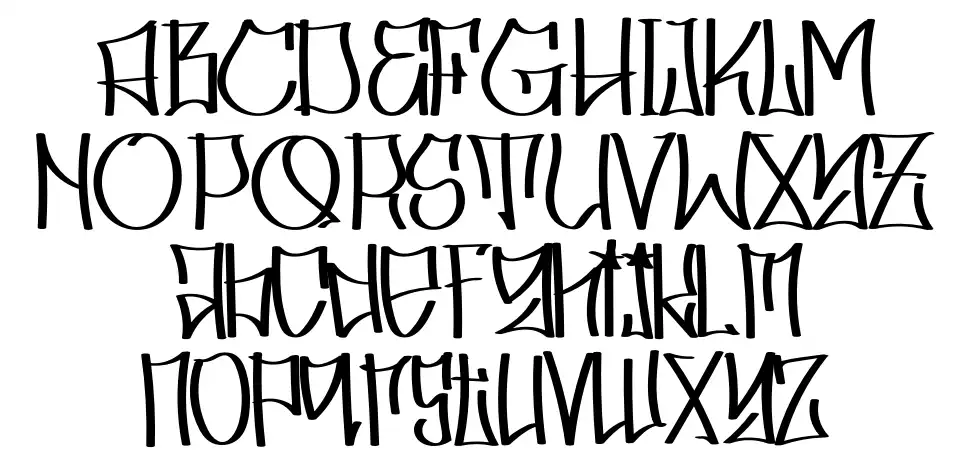
Skater boys gravity font was recently updated on apr 19, 2021. Skater boys gravity font is a graffiti font and was created on may 24, 2020. Votes, rated based on results identification. Since then, it has been downloaded 2,951 times and added to 172 collections. 2 people have liked skater boys gravity font and given it a thumbs up. Skater boys gravity is a font. Skater boys gravity ttf (400) font. Download and install the skater boys gravity font by alde design. Skater boys is licensed under the following terms: Not free for commercial use.
Skateboards Font Billy Argel Fonts FontSpace Skater Boy Font Skater boys gravity font is a graffiti font and was created on may 24, 2020. Download and install the skater boys gravity font by alde design. Skater boys gravity ttf (400) font. Skater boys gravity font was recently updated on apr 19, 2021. File size 0.07mb | alde design,skater boys. 215,437 downloads (8 yesterday) 6 comments free for personal use.. Skater Boy Font.
Skater Boys Gravity Font by aldedesign · Creative Fabrica Skater Boy Font File size 0.07mb | alde design,skater boys. The typeface contains 1 file and supports 38 languages. Skater boys gravity ttf (400) font. Skater boys gravity font was recently updated on apr 19, 2021. Not free for commercial use. Since then, it has been downloaded 2,951 times and added to 172 collections. Download and install the skater boys gravity font by. Skater Boy Font.
Skater Boys Font Family · 1001 Fonts Skater Boy Font The typeface contains 1 file and supports 38 languages. Truetype 233 glyphs 240 characters. Skater boys is licensed under the following terms: Download and install the skater boys gravity font by alde design. Skater boys gravity ttf (400) font. Since then, it has been downloaded 2,951 times and added to 172 collections. 215,437 downloads (8 yesterday) 6 comments free for. Skater Boy Font.